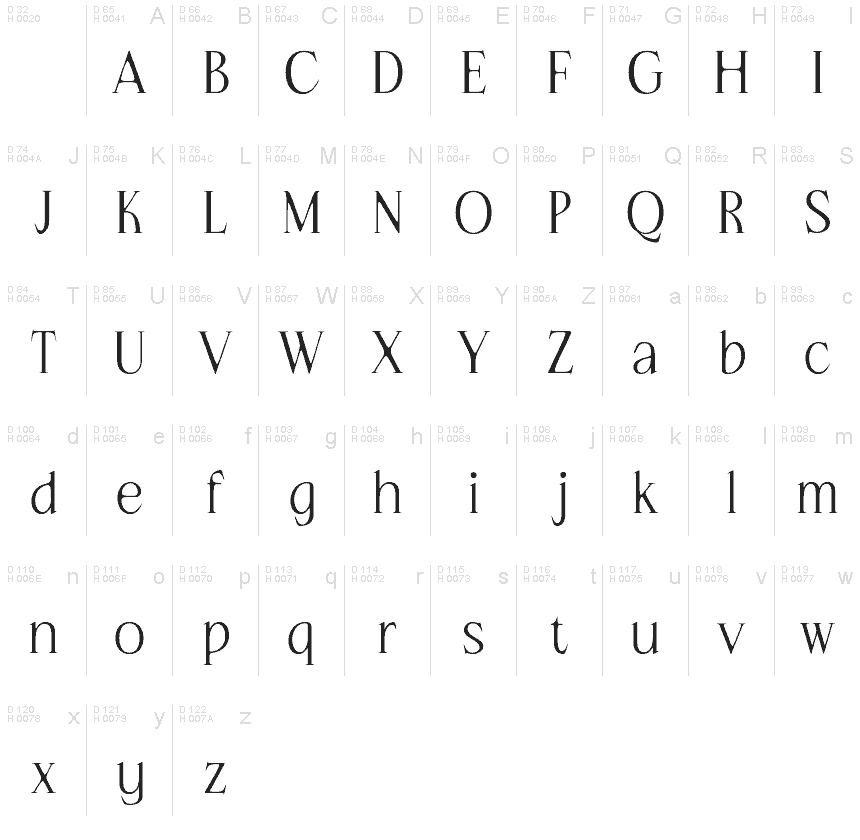
CSCanelaDrawn-Regular Demo
CS Canela Drawn font is another free elegant serif font designed by Craft Supply Co. Users will notice the modern, refined, stylish and overall sophisticated look of this typeface. The smooth and thin lines give the letters a classic vibe which on a white background can be very catchy.
Though mostly adequate for headings, CS Canela Drawn can actually work fine for writings of different types. Branding elements such as packaging labels and logos are the perfect fit as well as book or magazine covers. Beautiful written stationery items like greeting cards, invitations or postcards can turn out amazing too!